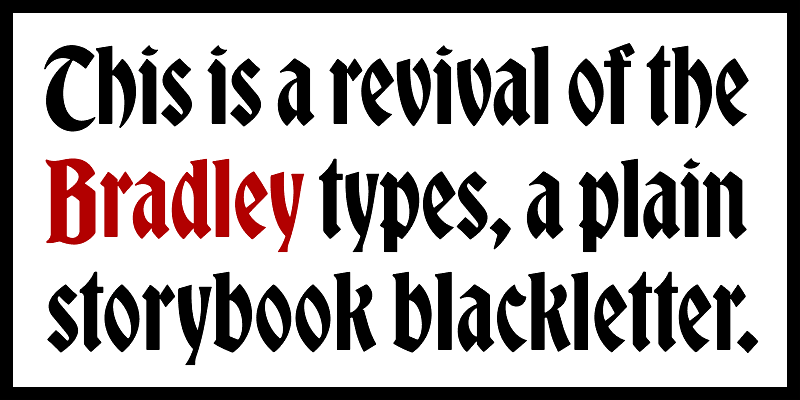
Bradley DJR Font Free Download is a sophisticated and refined serif typeface that captures the essence of elegance and timeless style. With its distinct letterforms and balanced proportions, this font is perfect for high-end branding, editorial design, wedding invitations, and luxury packaging projects.
Bradley DJR Font excels in both large headings and smaller text, offering versatility and readability in various design contexts. It seamlessly integrates with design tools like Adobe Illustrator, Photoshop, Figma, and Canva, providing flexibility across both print and digital platforms.